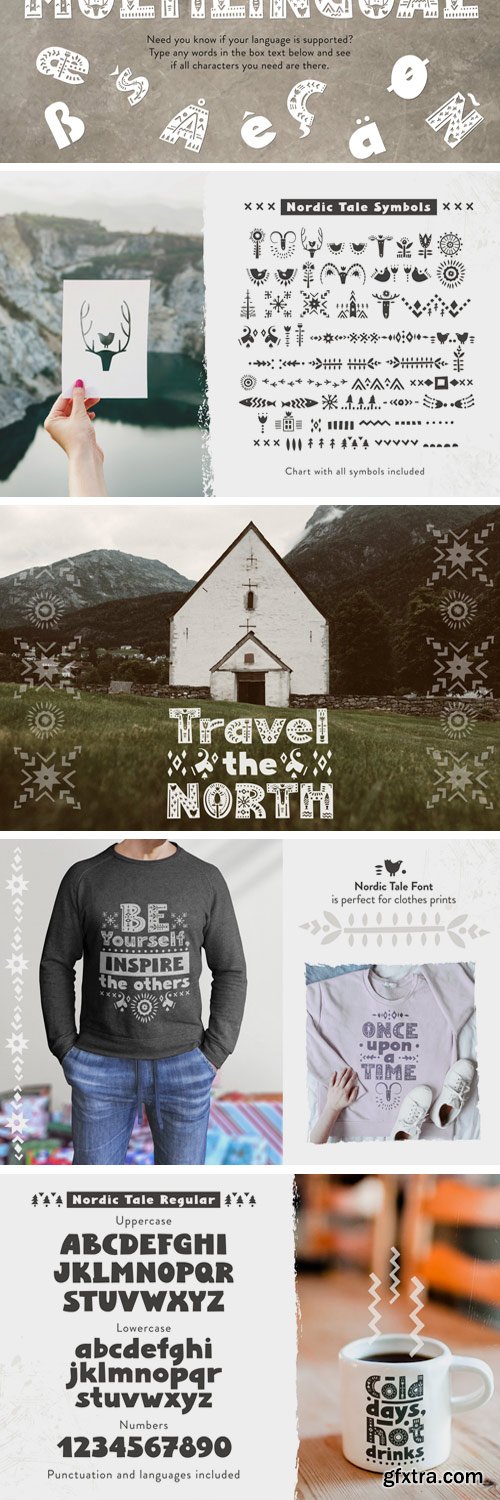
I would like to introduce my new product - Nordic Tale - Folkart Font Family. The font is created with love for the Scandinavian aesthetics, it is decorated with Nordic patterns. Every letter of the folkart font is a separate cultural story. The typeface includes Decorative, Regular and Symbol versions. The font is easy to use in various design programs or without any program.